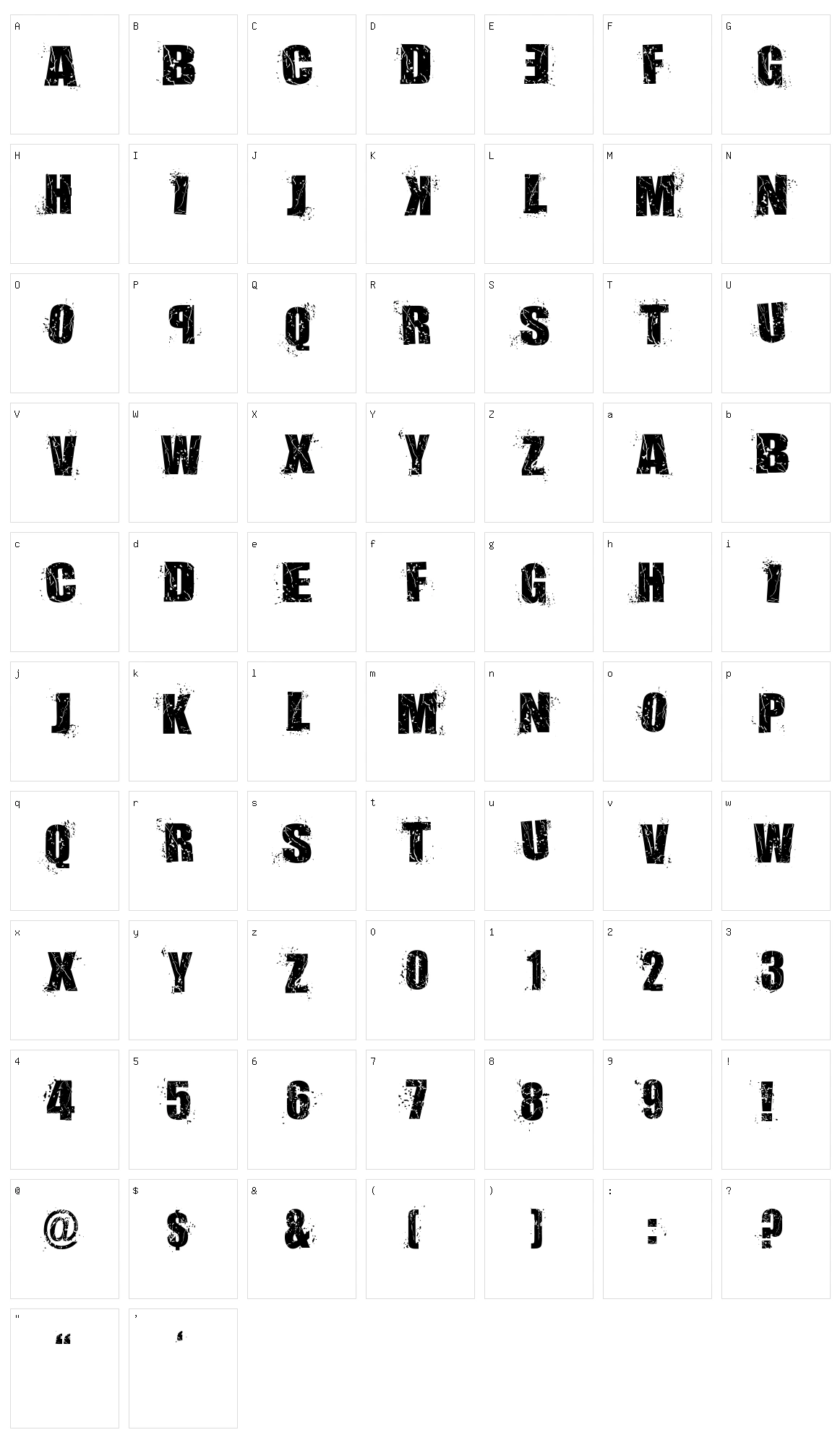
The free font Assassins Dub is carefully designed by DJ Odyssey, showcasing a thoughtful balance of creativity and usability and falls under the Distorted font style. When you download the ZIP file, it contains only 140.92 KB of font files, making it lightweight and quick to download. Please review the license details below to understand permitted usage and distribution rights. If license information is not available, we recommend using this font for personal projects only or contacting the author directly for commercial usage permissions.